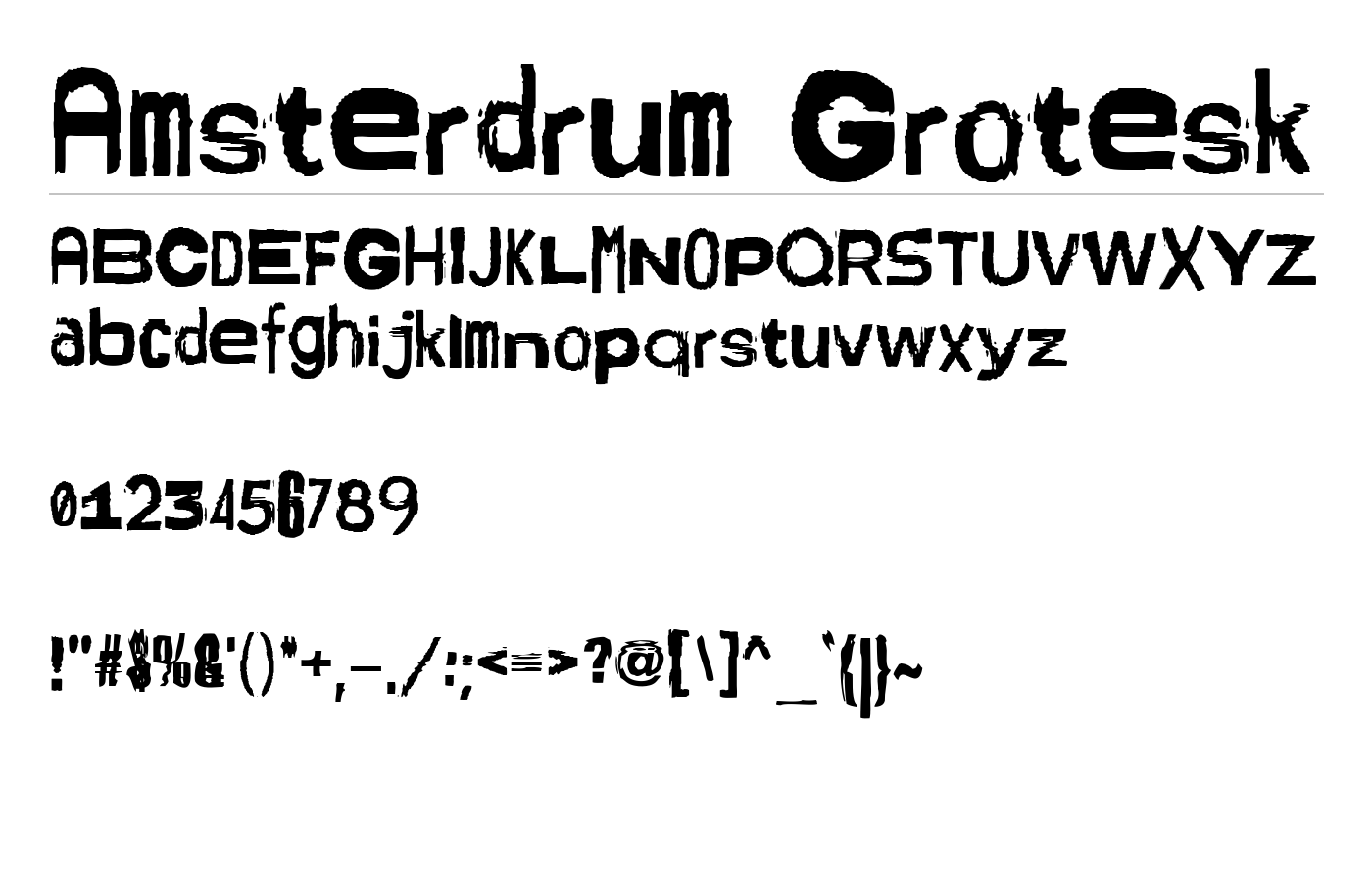
Amsterdrum Grotesk is a bold, distressed sans serif font with a gritty, textured appearance that adds a raw, urban edge to any design. Its irregular shapes and uneven strokes give it a handmade, expressive feel, making it ideal for creative projects that want to convey energy, rebellion, or street-style authenticity. This font works best in eye-catching headlines, posters, and branding where a strong, edgy personality is needed.
Amsterdrum Grotesk Font
About Amsterdrum Grotesk Font